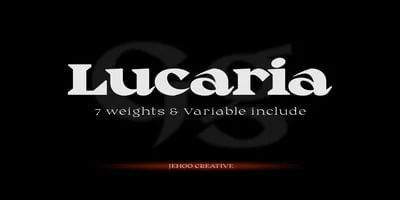
Lucaria Font
Lucaria Font is perfect for forest conservation organizations, mystical grove ceremonies, ancient woodland sanctuaries, sacred tree preservation societies, nature spirituality centers, druidic ritual materials, forest therapy retreats, sacred grove meditation spaces, ancient Celtic cultural sites, woodland wildlife protection groups, mystical forest festivals, and authentic sacred woodland communications.
This font is exciting because it captures the mystical luminosity and sacred reverence of ancient sacred groves, featuring ethereally elegant letterforms that glow with the same spiritual radiance and natural sanctity found in the legendary Lucaria festival of ancient Rome where people honored the sacred groves that provided both physical shelter and spiritual sanctuary, representing humanity's deepest connection to forest wisdom and the luminous energy that flows through ancient woodlands where druids once communed with tree spirits and nature's divine presence. The luminously crafted character design embodies both the filtered sunlight that creates cathedral-like spaces within sacred groves and the spiritual illumination that comes from connecting with the ancient wisdom of trees, creating typography that feels both naturally mystical and spiritually enlightening. Each letter radiates the kind of sacred forest energy and luminous reverence that transforms ordinary text into spiritual expressions worthy of the most sacred woodland sanctuaries.
The Lucaria Font family includes regular weight with complete character sets featuring nature-inspired numerals, mystical punctuation marks, and decorative elements reminiscent of dappled sunlight, tree branches, Celtic knotwork, and sacred grove symbolism. Advanced versions may offer additional stylistic variants with enhanced luminous effects, alternate characters that create flowing natural connections, and mystical ornaments that celebrate the spiritual heritage of sacred groves and forest reverence traditions.
Whether you're developing forest conservation branding, creating nature spirituality materials, or designing sacred woodland content, Lucaria Font provides the mystical luminosity and sacred forest authenticity your project needs to honor ancient grove traditions while connecting with audiences who appreciate the spiritual wisdom and natural sanctuary that sacred forests provide to those seeking deeper connection with nature's divine presence. This typeface transforms ordinary text into sacred expressions that bridge ancient forest wisdom with contemporary environmental consciousness. The font's mystical character makes it perfect for organizations that celebrate forest spirituality and sacred woodland preservation. Nature spirituality advocates and forest conservation enthusiasts will appreciate how this font brings authentic sacred grove tradition to their work with its genuinely luminous and spiritually reverent character that illuminates forest wisdom.